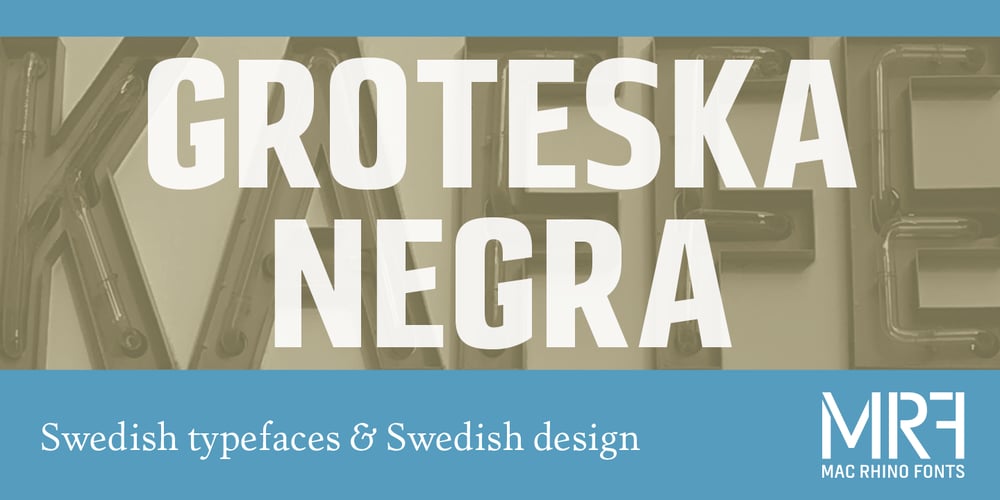
Grotesca Negra Font Family was designed by Stefan Hattenbach and published by MAC Rhino Fonts. Grotesca Negra contains 1 styles and family package options. Grotesca Negra is a charming sans serif with a flirt towards the Jugend era. Still its modern enough not to feel outdated. It is briefly inspired by a local typeface named Grotesca chupada negra, found in a Spanish edition of a type specimen book from the German Bauer type foundry. It has an angle on the horisontal strokes on many of the letters. It is one of many display face derived from book cover designs. Intended to work as a display typeface.